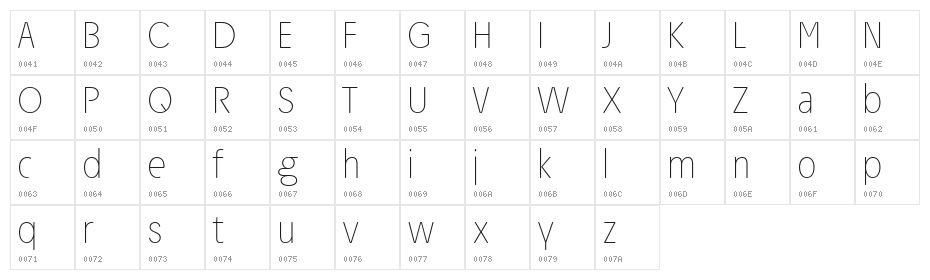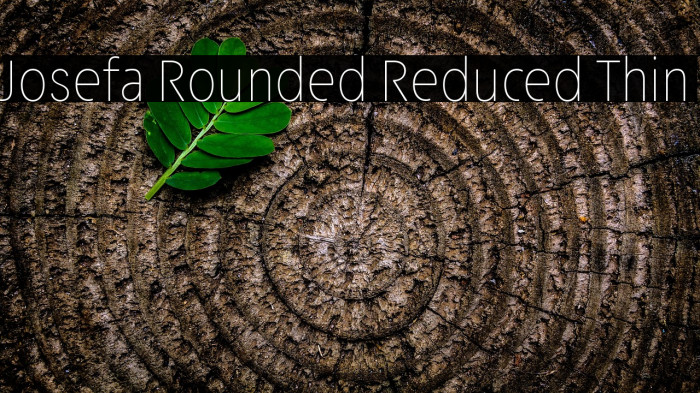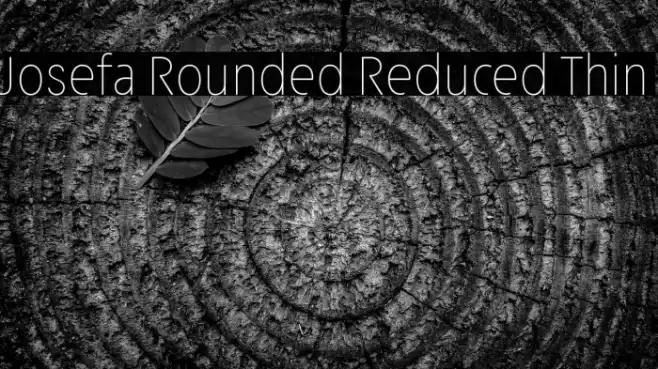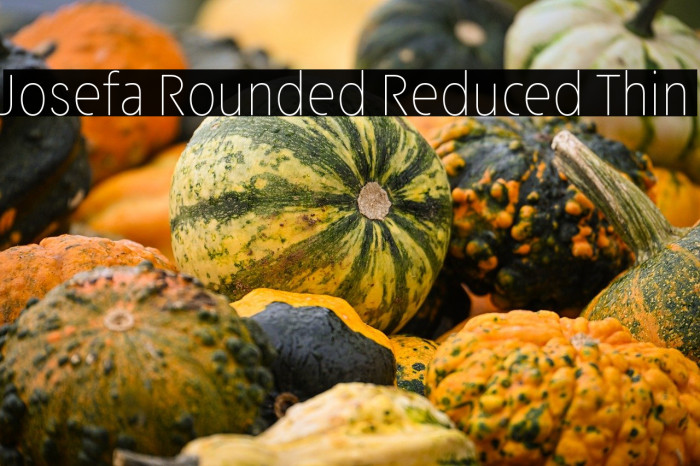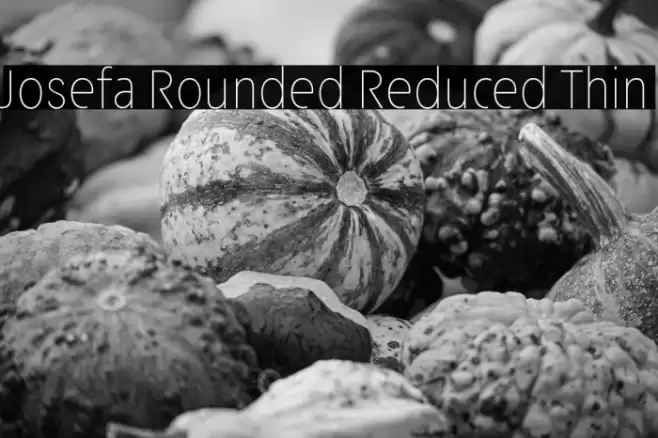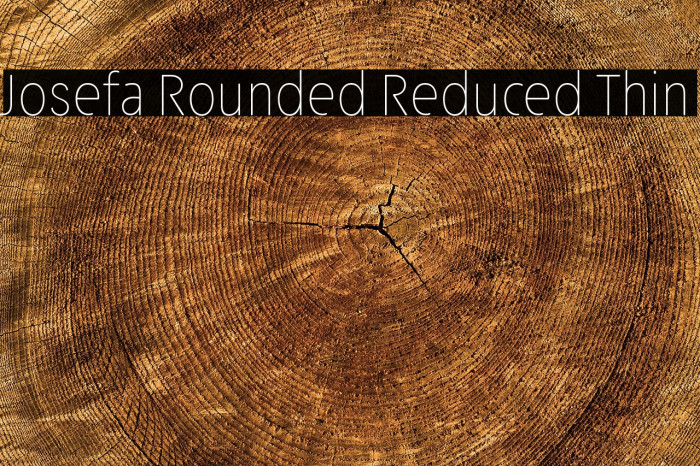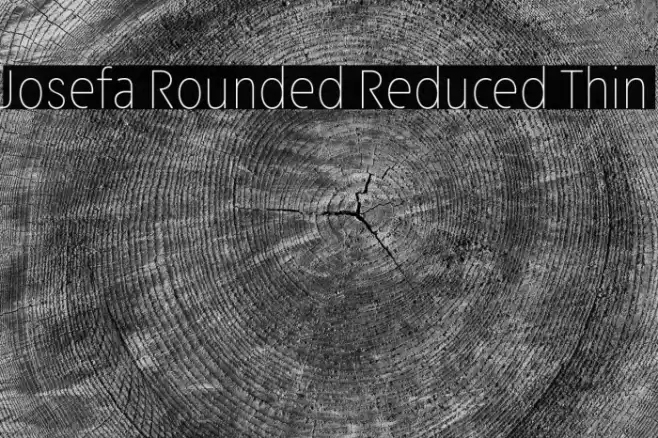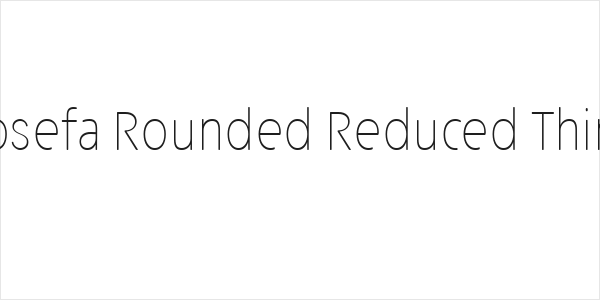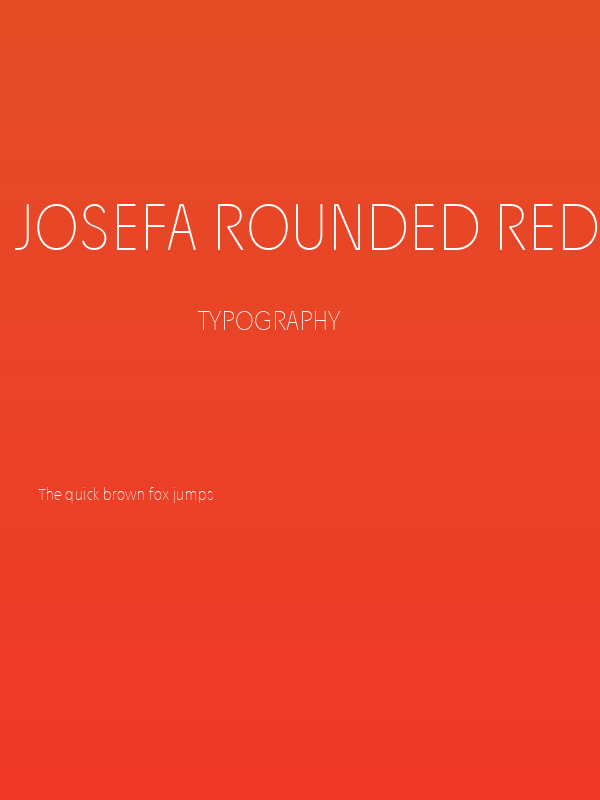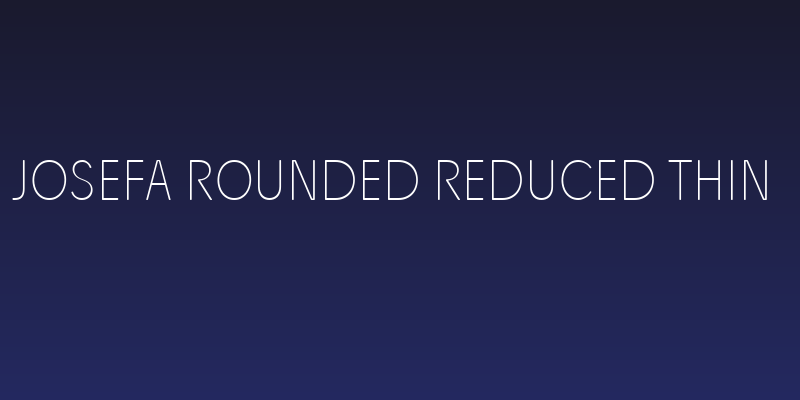
Josefa Rounded Reduced Thin Font
Josefa Rounded Reduced Thin Description
This font features a clean, minimalist design with rounded edges that give it a friendly and approachable appearance. The thin strokes contribute to its modern and elegant look, making it suitable for contemporary design projects. The uniformity in line thickness and the geometric structure of the characters provide a sense of balance and harmony. The uppercase and lowercase letters maintain a consistent style, enhancing readability. The numerals and special characters are designed to match the overall aesthetic, ensuring a cohesive visual experience.
| Proposed Projects | Ideal for branding, editorial design, websites, and user interfaces where a modern and approachable look is desired. |